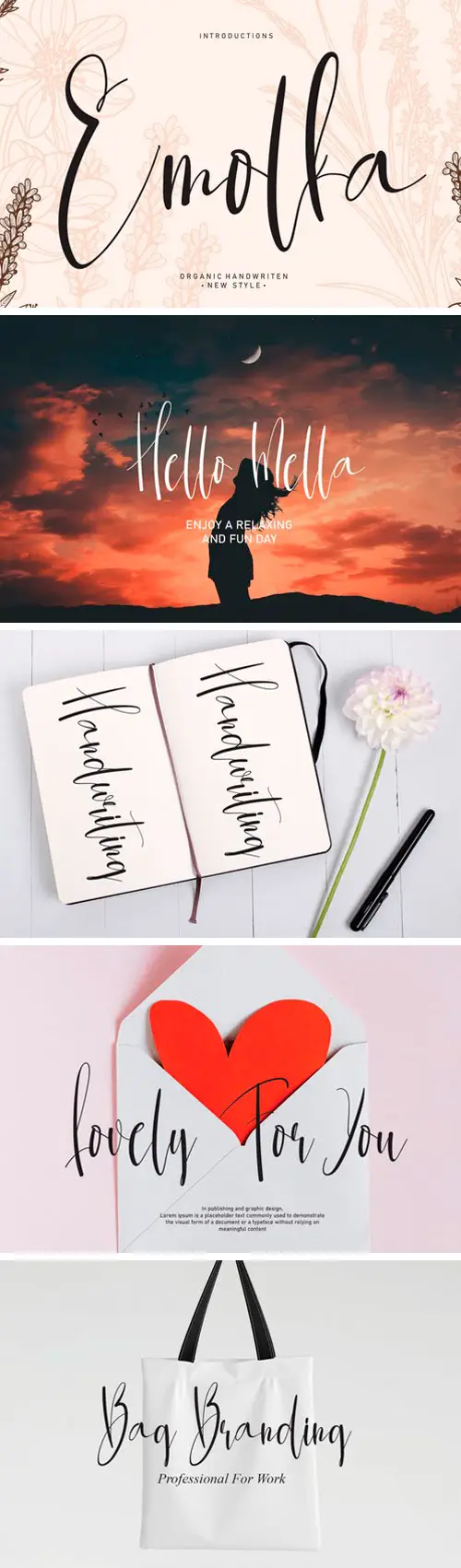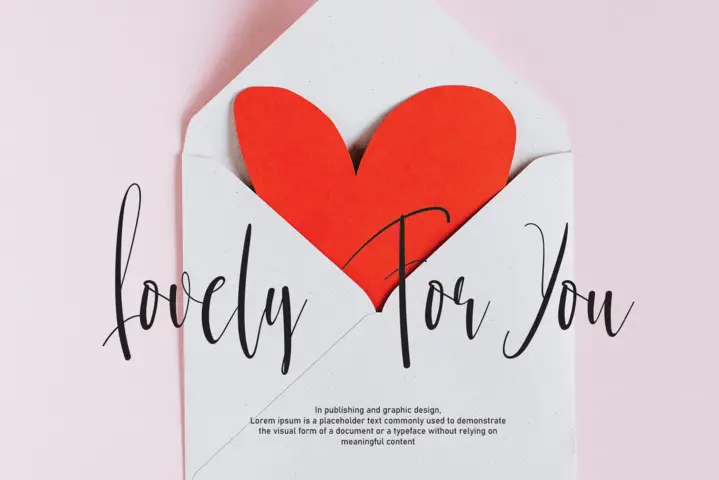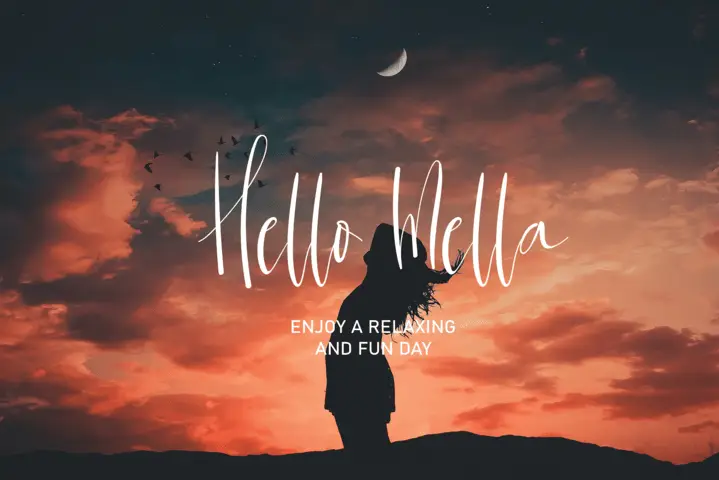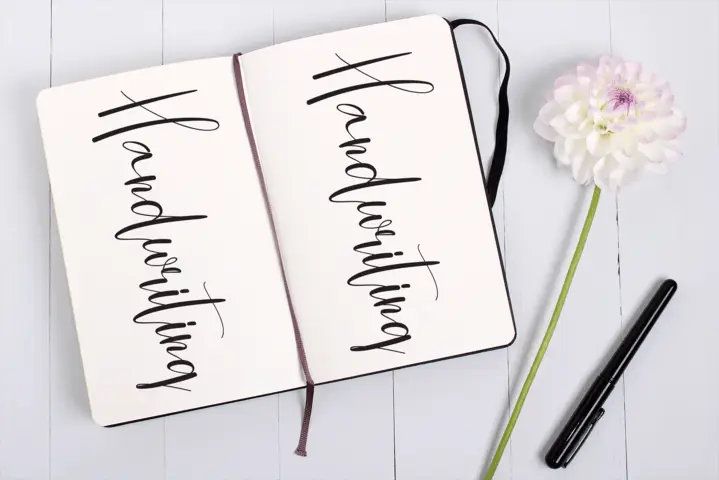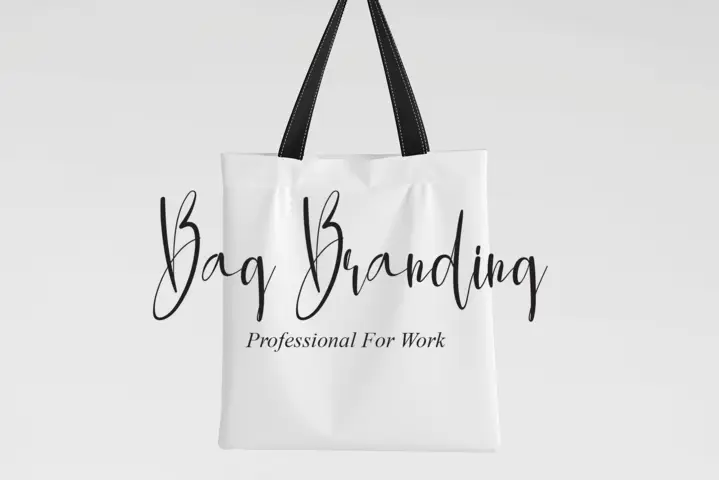
Emolka Script Font
Introducing the Emolka Script Font, a beautifully crafted typeface that brings elegance and personality to your designs. With its flowing curves and unique character shapes, this font is perfect for a variety of applications, from branding and logos to web and print projects.
• Stylish script design with a modern touch
• Multiple weights for versatile use
• Easy to read, making it suitable for both headlines and body text
• Ideal for wedding invitations, greeting cards, and personal branding
• Use in combination with sans-serif fonts for a balanced look